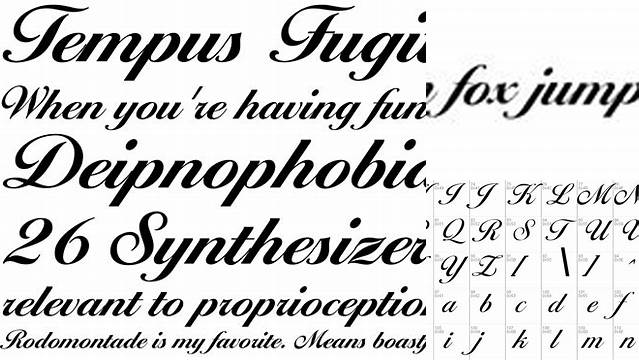
Ballantines Script EF Medium Font: Free Download Guide
Hey guys! Ever stumbled upon a font that just clicks? For many designers and creatives, the Ballantines Script EF Medium font is one of those. It's got that perfect blend of elegance and readability, making it a go-to choice for a wide range of projects. But finding it for free can be a bit of a hunt. Don’t worry, we've got you covered! This article will dive deep into everything you need to know about this fantastic font and where you might be able to snag a free download (legally, of course!). We'll explore its history, its uses, and even some great alternatives if you can't quite track it down.
What is Ballantines Script EF Medium Font?
Before we go any further, let's get crystal clear on what exactly the Ballantines Script EF Medium font is. This font is a beautiful, flowing script typeface that's part of the larger Ballantines family. It exudes a sense of sophistication and handwritten charm, making it ideal for projects where you want to convey a personal touch. Think wedding invitations, branding materials, or even elegant website headers. The 'EF' in the name stands for Elsner+Flake, the foundry that originally developed this font. The 'Medium' weight gives it a balanced appearance – not too light and airy, and not too bold and imposing.
The History and Origins of Ballantines Script
To truly appreciate the Ballantines Script EF Medium font, let's take a quick trip down memory lane. Elsner+Flake, a renowned German foundry, created this script as part of their broader Ballantines typeface family. Elsner+Flake has a long and rich history in the world of typography, known for producing high-quality, distinctive fonts. The Ballantines Script was designed to evoke a sense of classic calligraphy, reminiscent of handwritten letters and elegant penmanship. This timeless quality is part of what makes it so appealing even today.
Key Characteristics and Features
So, what makes the Ballantines Script EF Medium font stand out from the crowd? Several key characteristics contribute to its unique appeal. Its flowing strokes and delicate curves give it a natural, handwritten feel. The 'Medium' weight ensures readability, even at smaller sizes. The font also boasts excellent kerning (the spacing between letters), which contributes to its overall visual harmony. All these elements combine to create a font that's both beautiful and functional.
Common Uses and Applications
The versatility of the Ballantines Script EF Medium font is one of its greatest strengths. It's suitable for a wide array of design projects, from formal to more casual applications. Let's explore some of the most common uses:
Branding and Logo Design
Many businesses use script fonts like Ballantines Script EF Medium to create a distinctive and memorable brand identity. Its elegant style can convey sophistication, creativity, or a personal touch, depending on the brand's message. Think of luxury brands, artisanal businesses, or companies that want to project a sense of warmth and authenticity. The font's flowing lines can add a touch of class to a logo, making it stand out from the competition.
Wedding Invitations and Stationery
This is where the Ballantines Script EF Medium font truly shines! Its elegant and romantic feel makes it a perfect choice for wedding invitations, save-the-dates, and other wedding stationery. The handwritten quality adds a personal touch, making guests feel like they're receiving a bespoke invitation. The font can also be used for place cards, menus, and thank-you notes, creating a cohesive and sophisticated look for the entire wedding suite.
Greeting Cards and Personalized Gifts
Want to add a special touch to a greeting card or personalized gift? The Ballantines Script EF Medium font is an excellent choice. Its graceful curves can make any message feel more heartfelt and personal. Whether you're writing a birthday card, a thank-you note, or a congratulatory message, this font can help you convey your emotions in style.
Website Headers and Graphic Design Elements
Beyond print, the Ballantines Script EF Medium font can also be used effectively in web design and graphic design projects. It can add a touch of elegance to website headers, banners, and other graphic elements. However, it's important to use it sparingly to maintain readability, especially for body text. When used strategically, this font can elevate the overall look and feel of a website or graphic design project.